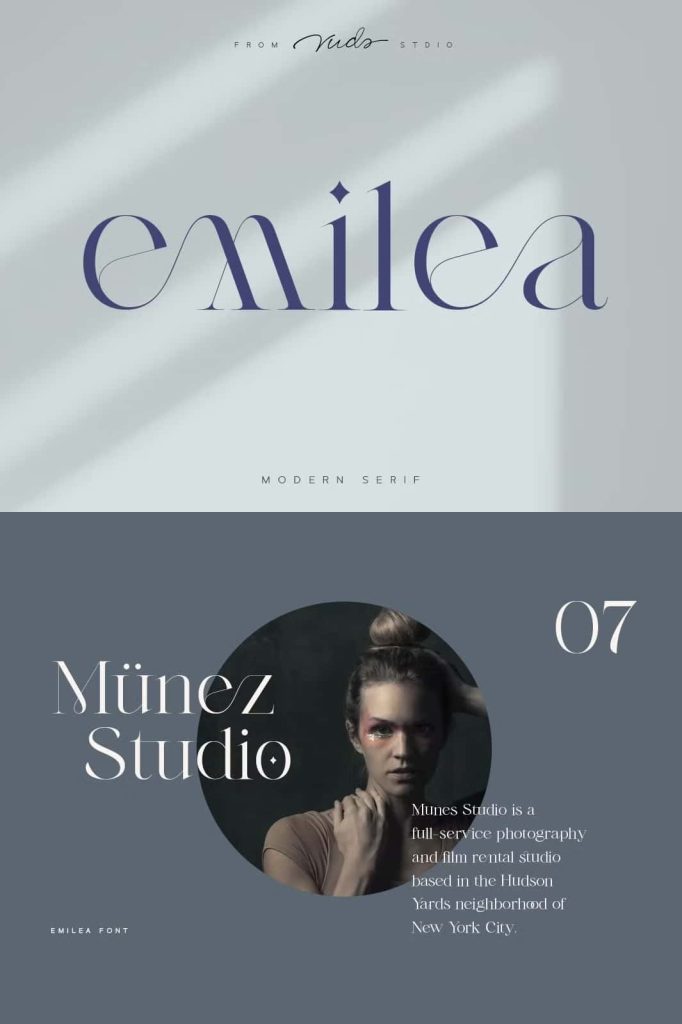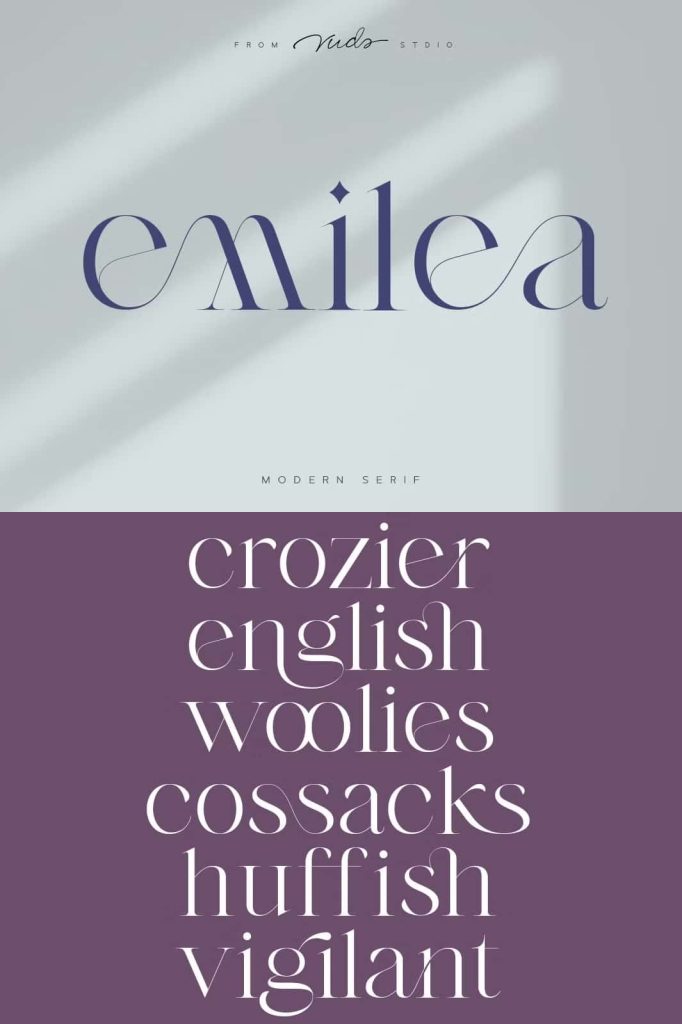
Emilea FontleastedMarch 23, 2025Fonts Emilea is modern serif font, every single letters have been carefully crafted to make your text looks unique. Download